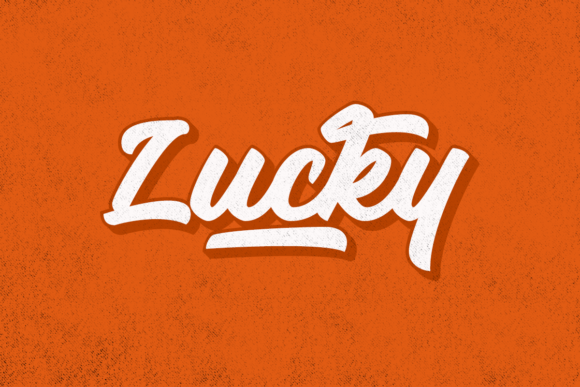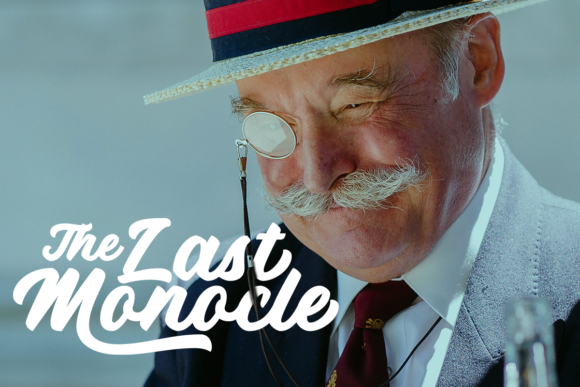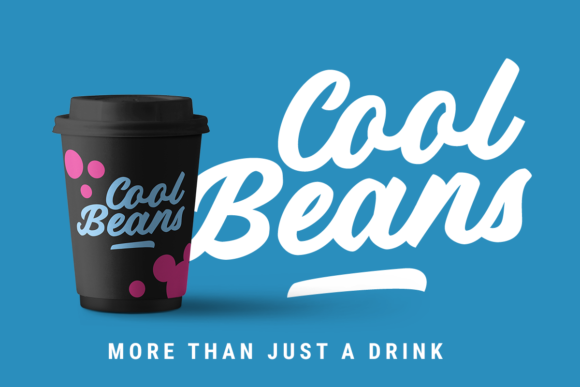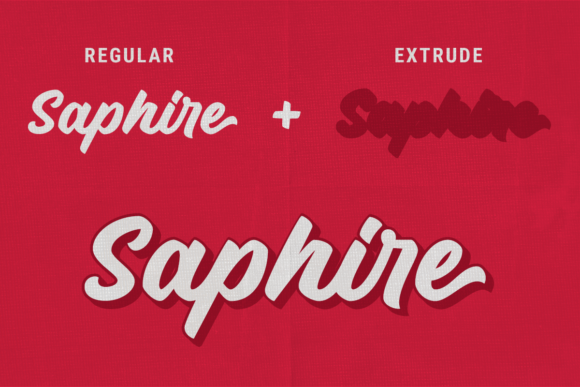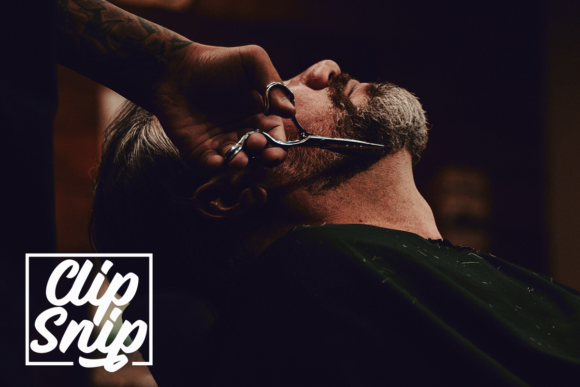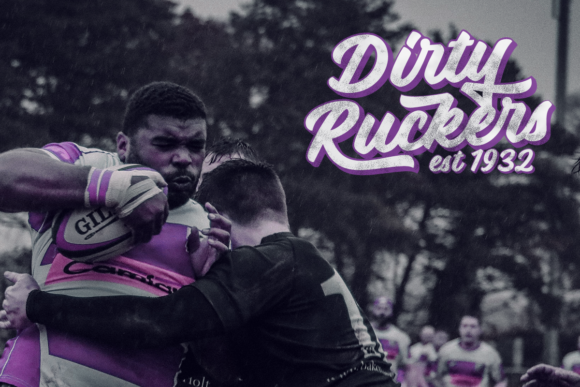
Hazel Clouds Font: Elevate Your Designs with a Modern Script Font
In the world of typography, a good font can make all the difference in creating visually stunning designs. For designers and crafters looking for a modern script font that can elevate their branding, headlines, logos, and packaging, Hazel Clouds is an excellent choice. This beautiful font is designed to add a touch of elegance and sophistication to any design project.
What is Hazel Clouds Font?
Hazel Clouds is a modern script font that features a unique and stylish design. Its elegant lines and curves make it perfect for creating beautiful headlines, logos, and packaging. The font comes with 9 stylistic alternates, giving designers and crafters plenty of options to experiment with and find the perfect look for their project.
Key Features of Hazel Clouds Font
- Modern Script Design: Hazel Clouds features a modern script design that is perfect for creating elegant and sophisticated designs.
- 9 Stylistic Alternates: The font comes with 9 stylistic alternates, allowing designers and crafters to experiment with different looks and find the perfect one for their project.
- Perfect for Branding: Hazel Clouds is perfect for creating beautiful branding materials, including logos, business cards, and letterheads.
- Suitable for Headlines and Packaging: The font is also great for creating eye-catching headlines and packaging designs that stand out.
Why Choose Hazel Clouds Font?
There are many reasons why designers and crafters should choose Hazel Clouds font for their design projects. Here are a few:
- Unique and Stylish Design: Hazel Clouds features a unique and stylish design that will make your designs stand out from the crowd.
- Elegant and Sophisticated: The font’s elegant lines and curves make it perfect for creating sophisticated designs that exude elegance.
- Versatile: Hazel Clouds is a versatile font that can be used for a wide range of design projects, from branding and headlines to logos and packaging.
- Easy to Use: The font is easy to use and comes with a simple and intuitive design that makes it easy to get started.
How to Use Hazel Clouds Font
Using Hazel Clouds font is easy. Here are a few tips to get you started:
- Pair it with Other Fonts: Hazel Clouds looks great when paired with other fonts. Experiment with different font combinations to find the perfect look for your project.
- Use it for Headlines: The font is perfect for creating eye-catching headlines that grab attention.
- Experiment with Stylistic Alternates: Don’t be afraid to experiment with the 9 stylistic alternates to find the perfect look for your project.
Here are a few tips and tricks for designers and crafters looking to get the most out of Hazel Clouds font:
- Use it for Branding Materials: Hazel Clouds is perfect for creating beautiful branding materials, including logos, business cards, and letterheads.
- Experiment with Different Sizes: The font looks great in different sizes, from large headlines to smaller body text.
- Pair it with Images: Hazel Clouds looks great when paired with images. Experiment with different image combinations to find the perfect look for your project.
In conclusion, Hazel Clouds font is a beautiful modern script font that is perfect for designers and crafters looking to elevate their designs. With its elegant lines and curves, 9 stylistic alternates, and versatility, it’s an excellent choice for a wide range of design projects. Whether you’re looking to create beautiful branding materials, eye-catching headlines, or stunning packaging designs, Hazel Clouds font is sure to impress.